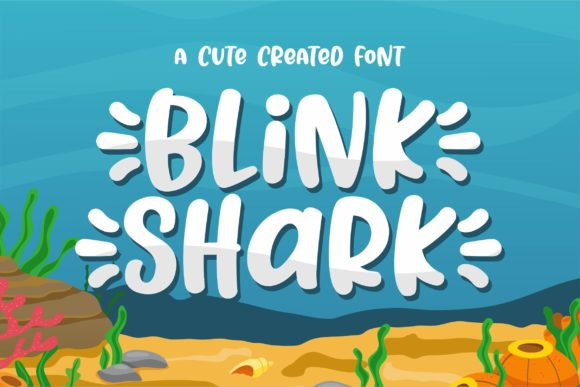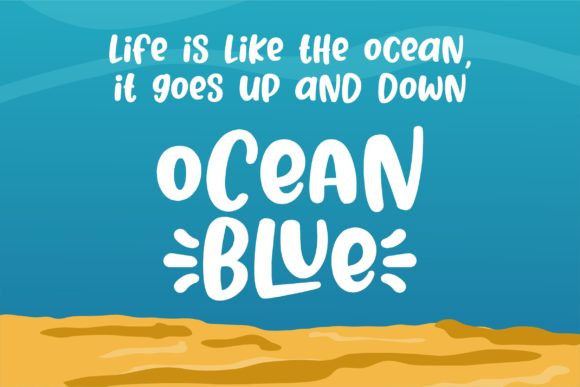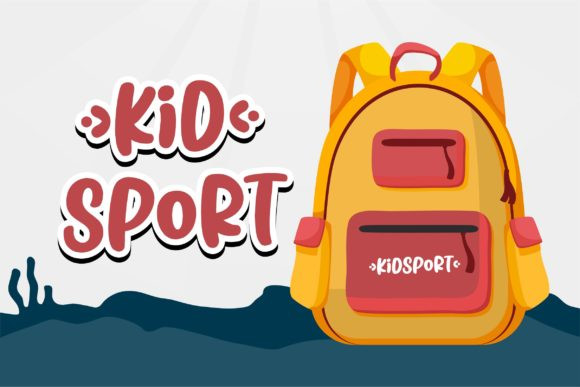
Blink Shark Font
Blink Shark is a stylish display font. Its casual charm makes it appear wonderfully down-to-earth, readable and, ultimately, incredibly versatile. Blink Shark will look outstanding in any context, whether it’s being used on busy backgrounds or as a standalone headline!